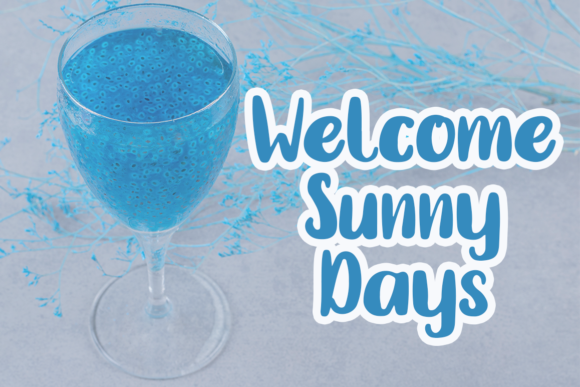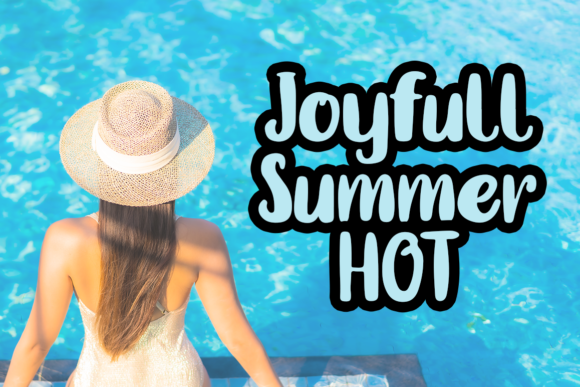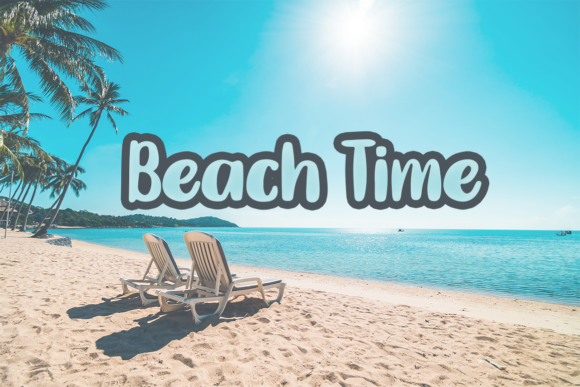
About Morning Summer Font
Morning Summer is a delightful handwritten font that exudes warmth and friendliness. With its cursive style and charming characters, it adds a personal and authentic touch to any design.
The natural and unique look of Morning Summer makes it incredibly versatile and suitable for a wide range of projects. Whether you’re designing greeting cards, wedding invitations, social media graphics, or branding materials, this font will bring a touch of elegance and whimsy to your creations.
The flowing and organic letterforms of Morning Summer capture the essence of handwritten script, creating a sense of intimacy and personal connection. It is perfect for conveying heartfelt messages, expressing creativity, and adding a personal touch to your designs.
Whether you’re aiming for a casual and relaxed vibe or a more sophisticated and romantic feel, Morning Summer adapts beautifully to different design styles. Its versatility allows it to be used in various contexts, from playful and fun projects to more elegant and refined designs.
The only limit to the possibilities of Morning Summer is your imagination. Let it inspire you to create beautiful and memorable designs that capture the essence of your message. Embrace the friendly and inviting nature of this font and let it add a touch of charm and personality to your projects.
Incorporate Morning Summer into your designs and watch as it brings your ideas to life. Its natural and unique style will make your designs stand out and create a lasting impression on your audience. So, unleash your creativity and let Morning Summer be your companion in crafting delightful and engaging designs.